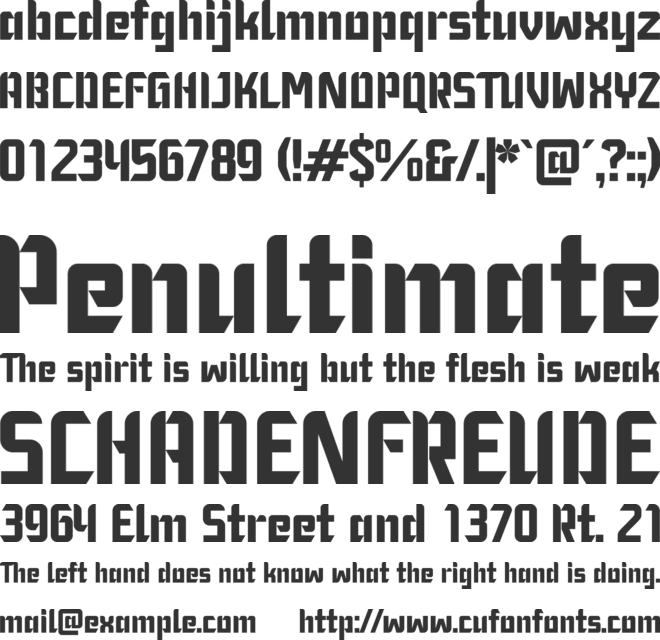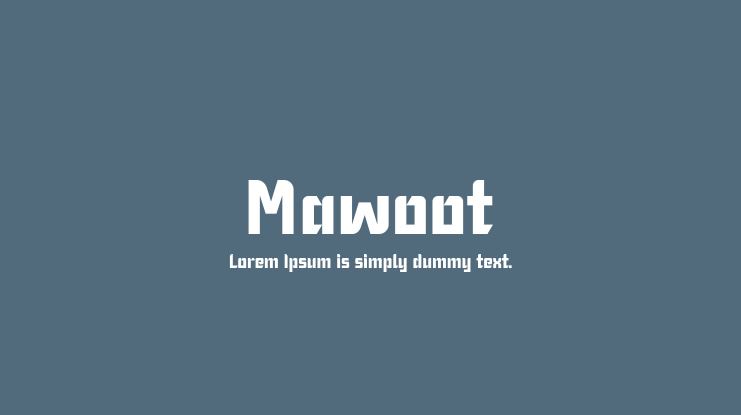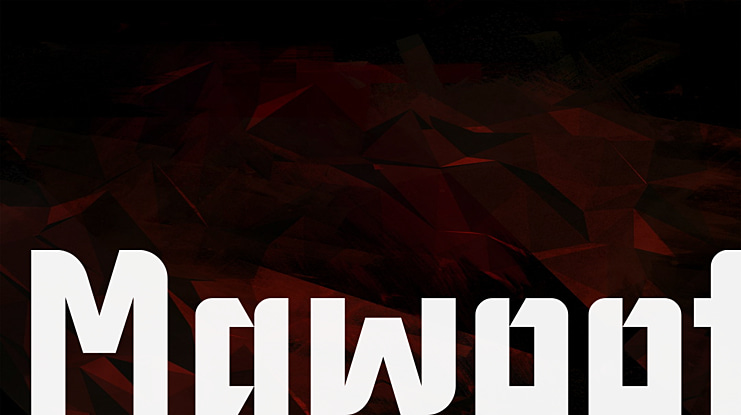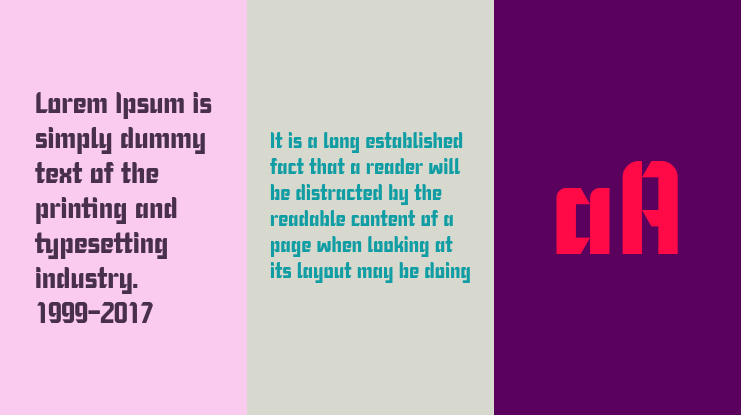
Mawoot Font
Muhammad Dziaaul Haq
Mawoot is a geometric display font. This design has a strong technological feel and modern playful shapes, it will suit any project you can think of.
Comes with a lot of opentype features, Mawoot also supports multilingual covering Latin based language.
Mawoot would be nice on logo design, posters, etc. with any design characteristic.